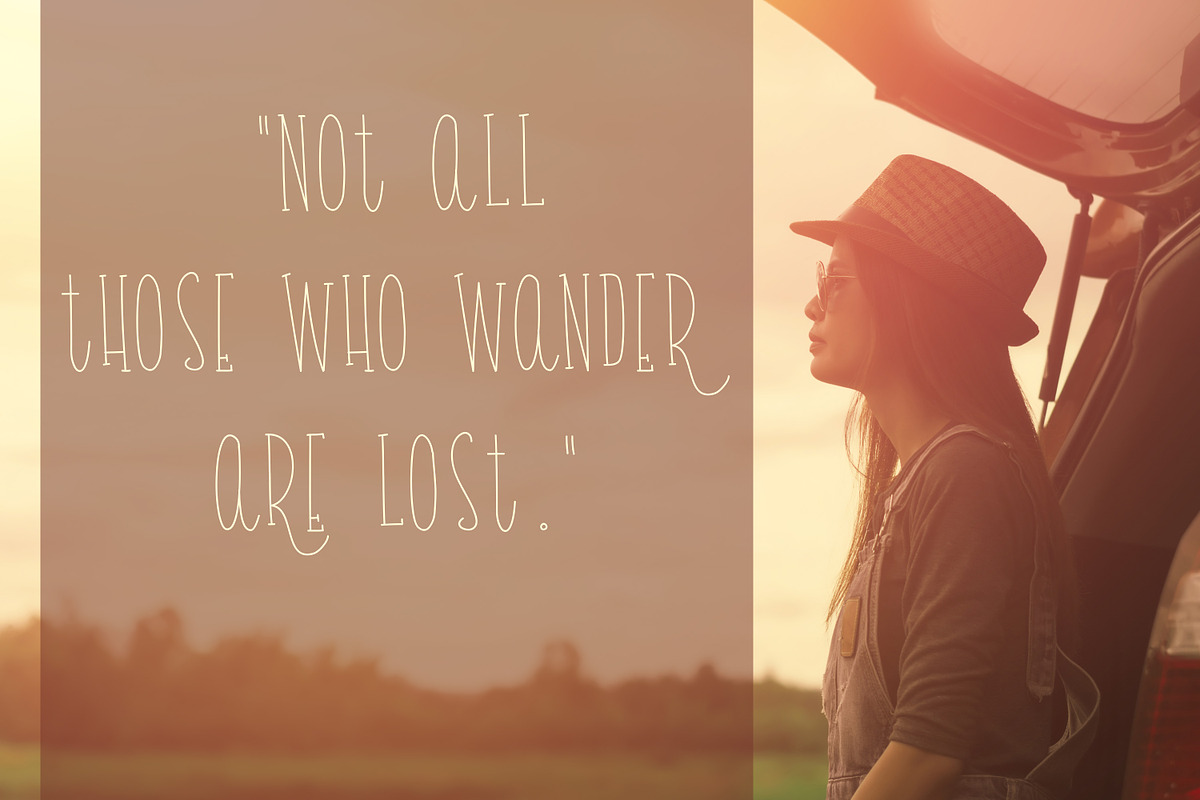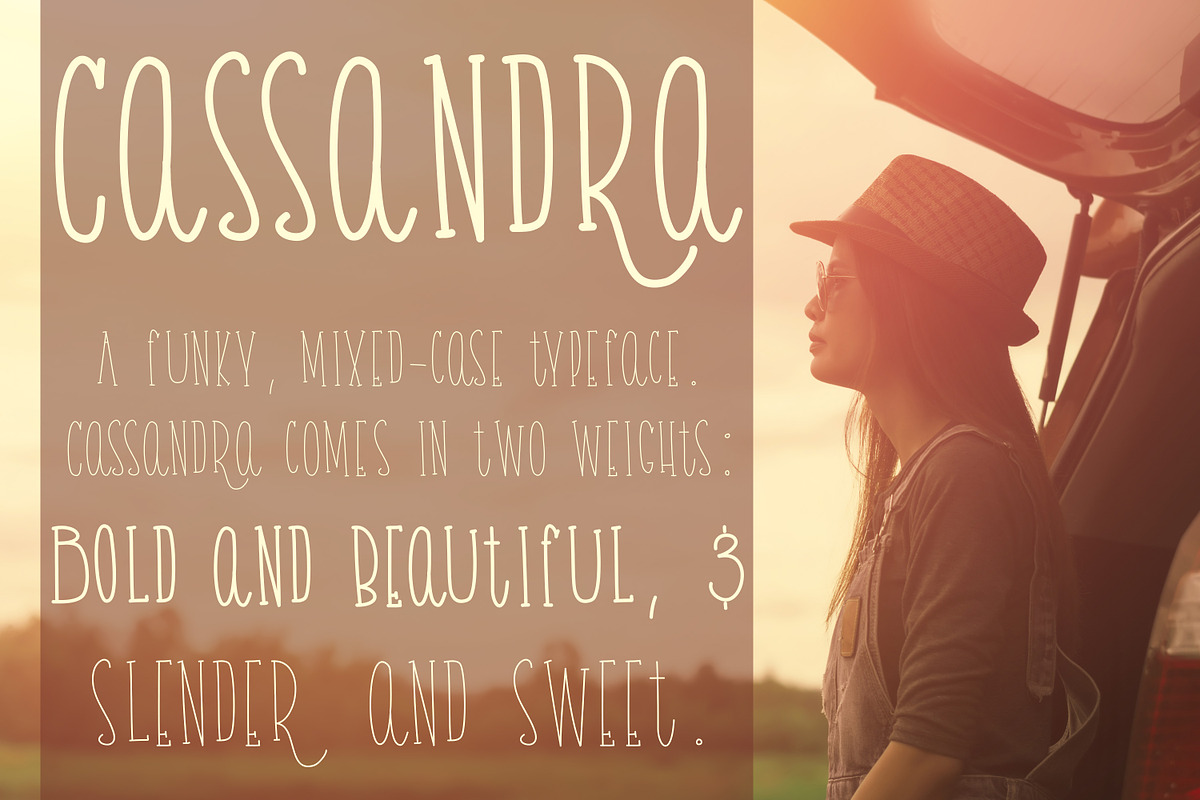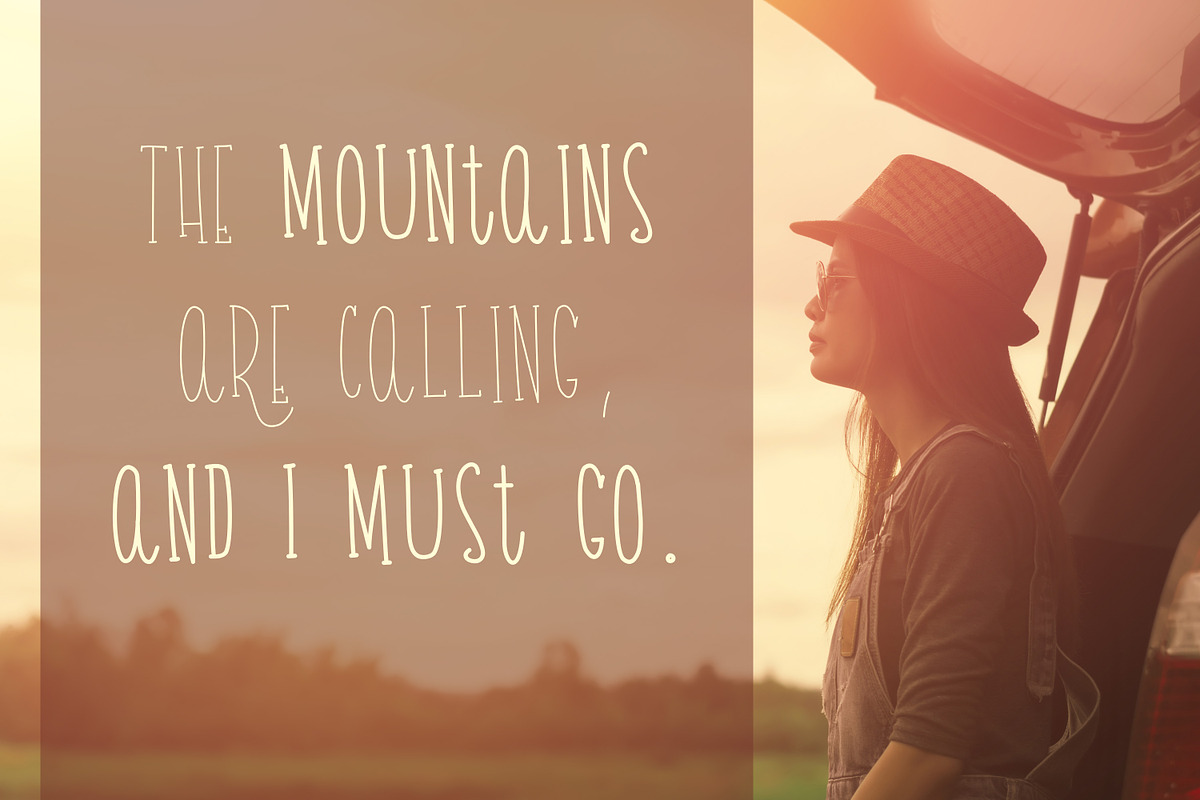
Cassandra
Cassandra is a funky, mixed-case typeface. It mixes uppercase and lowercase letters for a quirky, unique feel. This font is perfect for:
- greeting cards
- invitations
- posters
- t-shirt designs